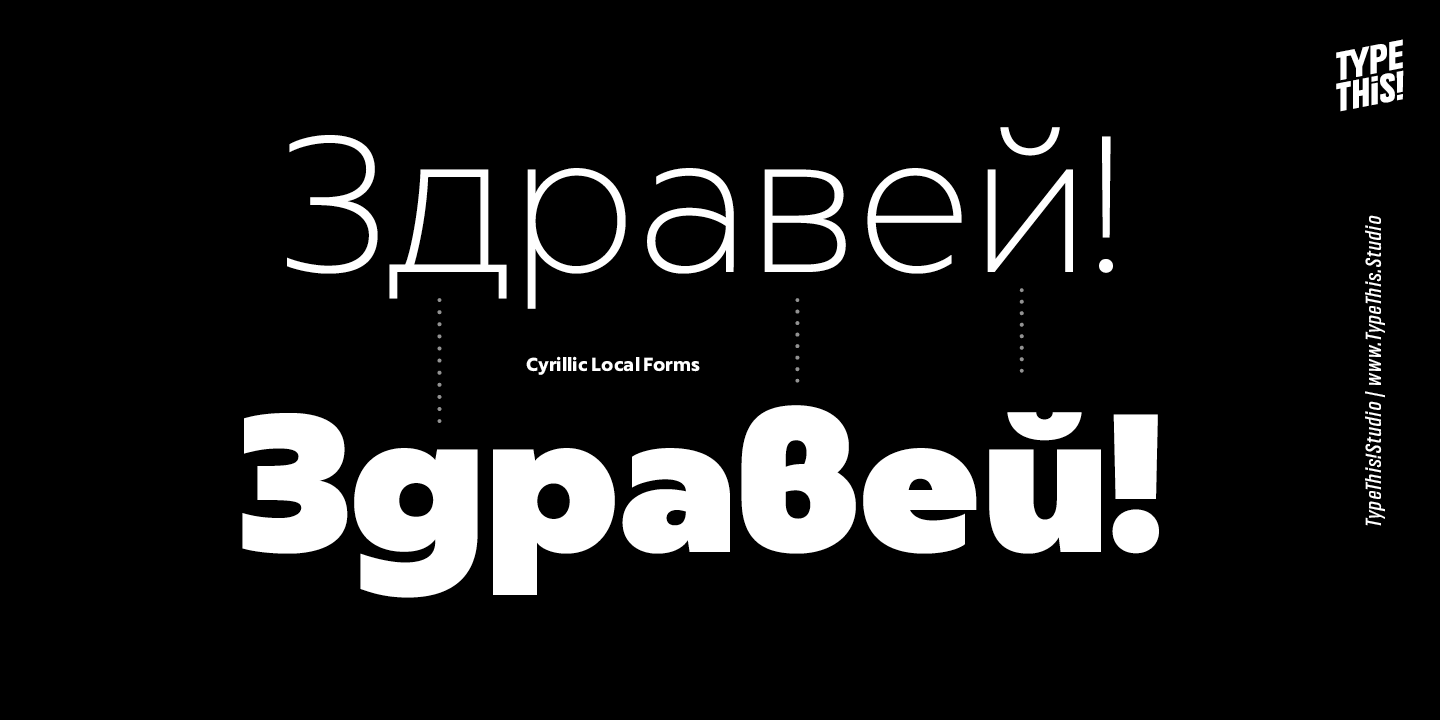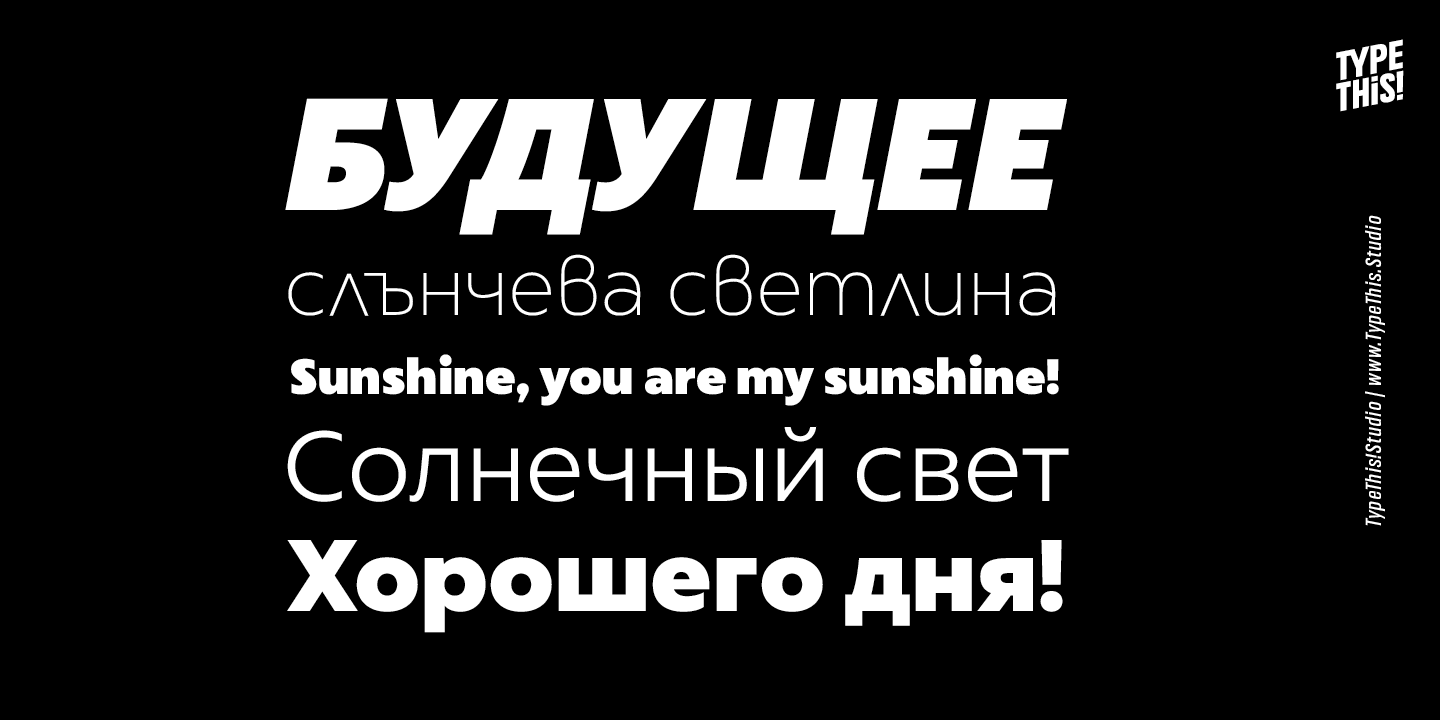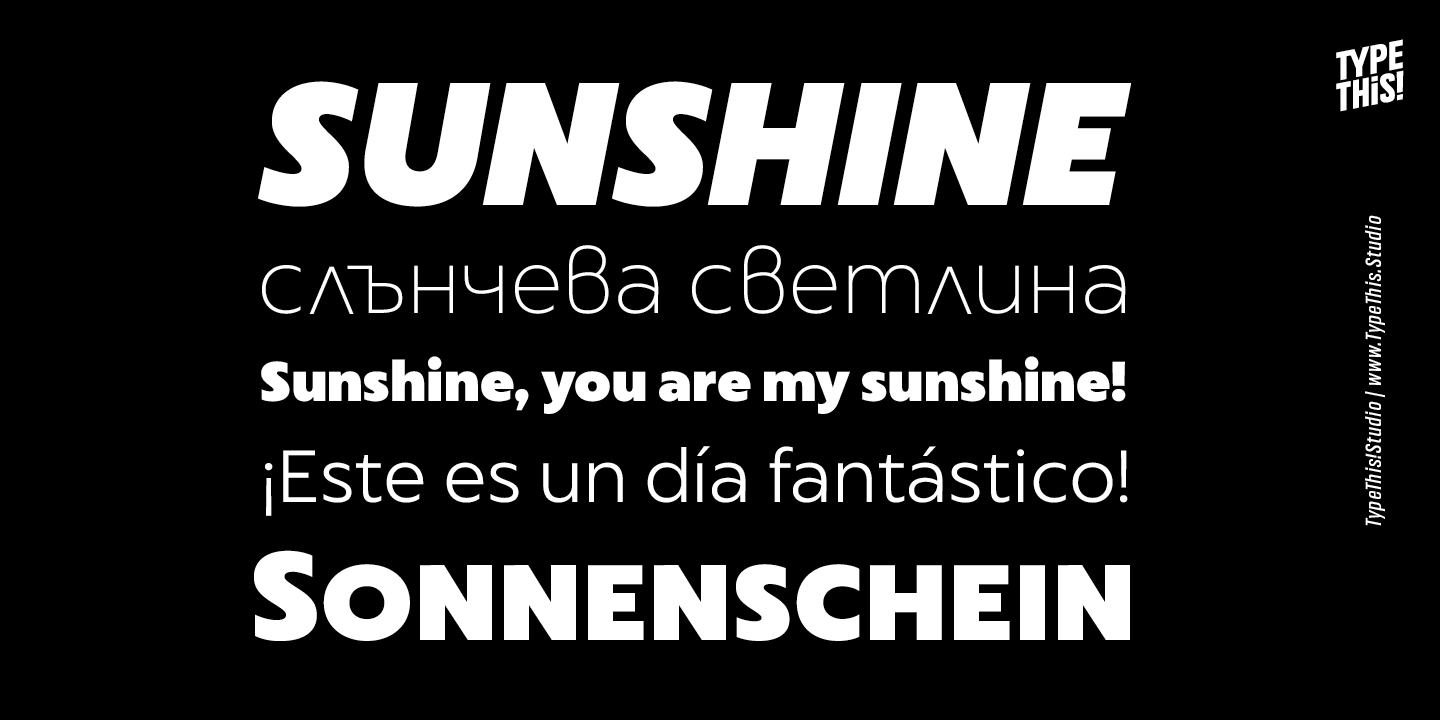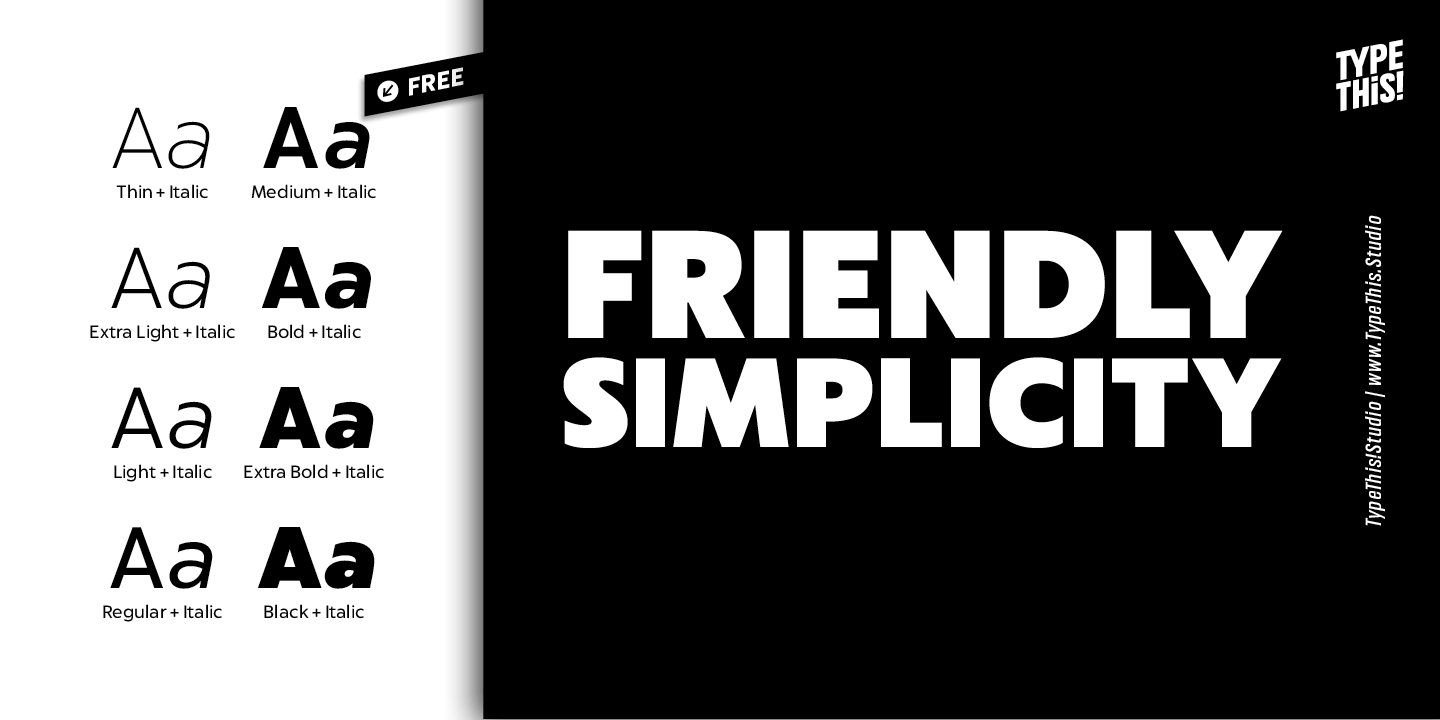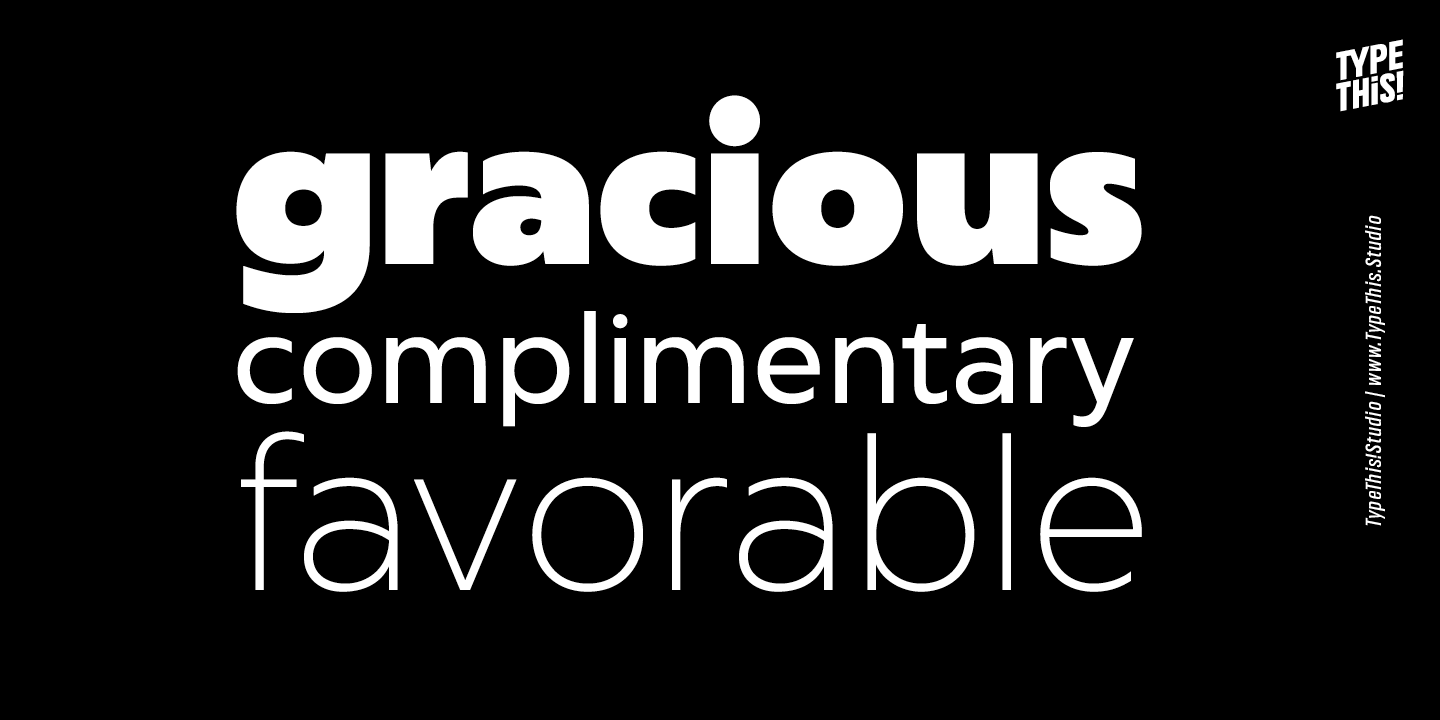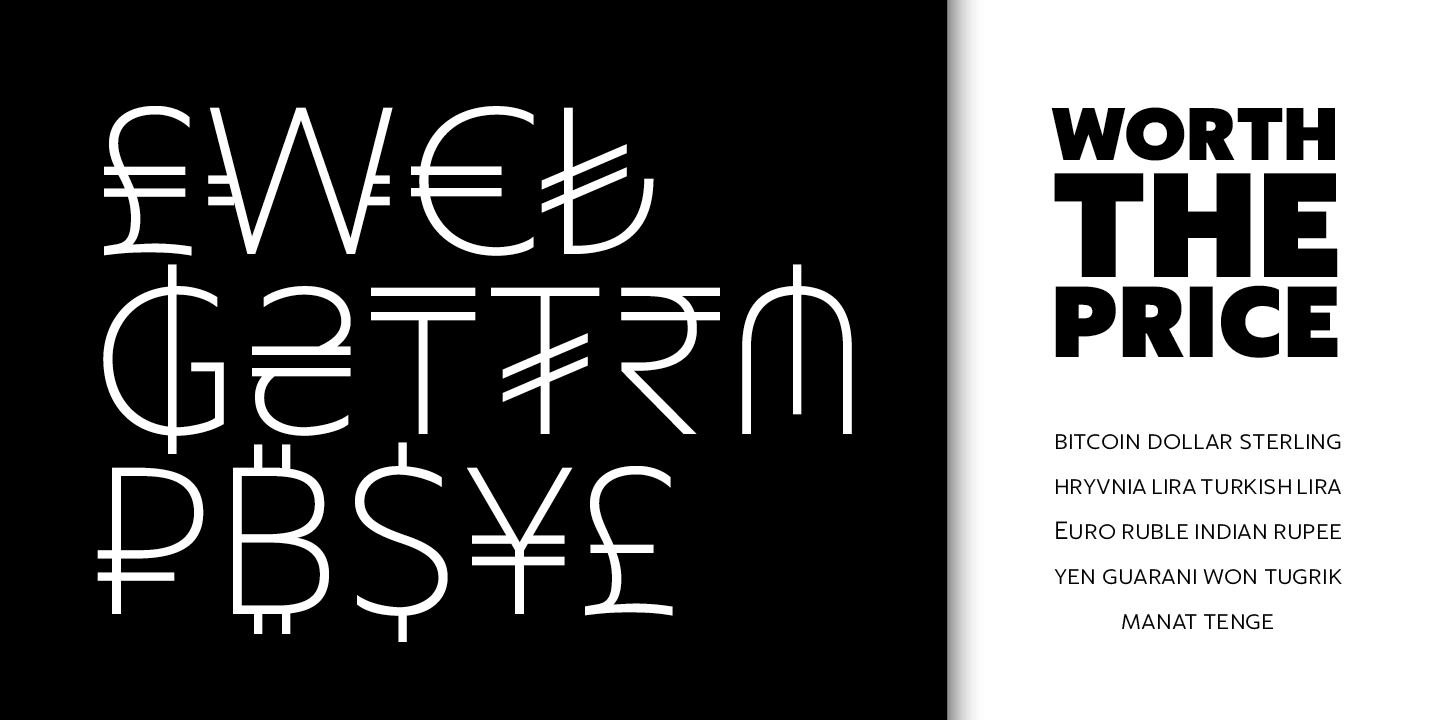
Carefully refined shapes and sensitively balanced spacing and kerning create the gentle rhythm that grants Captura Now its warm-hearted face, perfect in form and shape. Expanded with an enormous character set, Captura Now offers the freedom to transform…